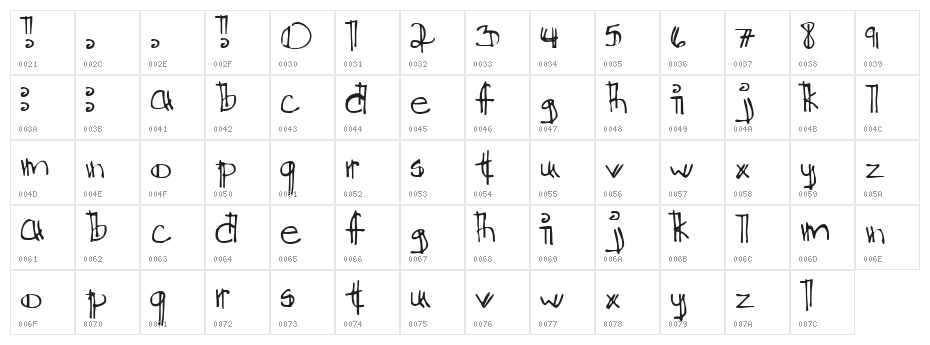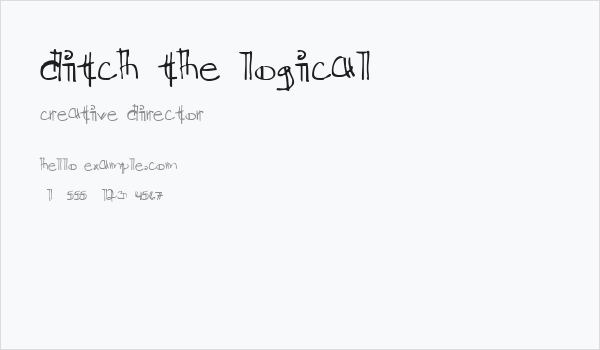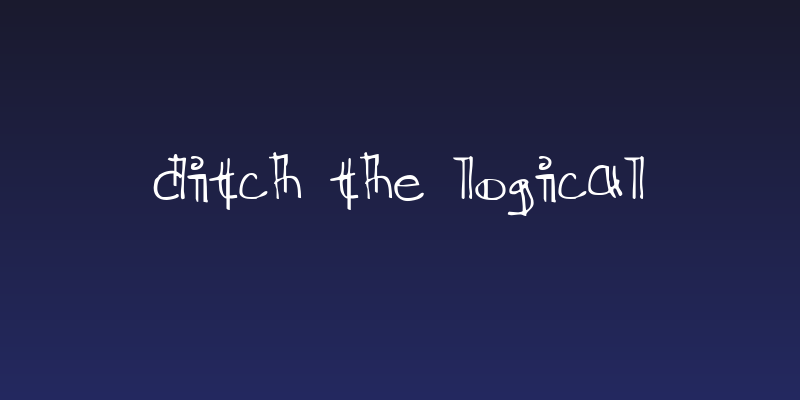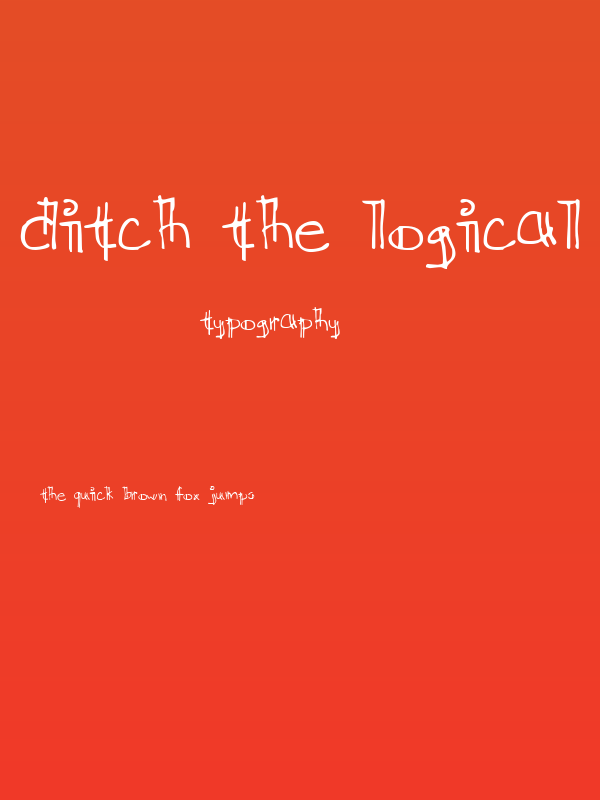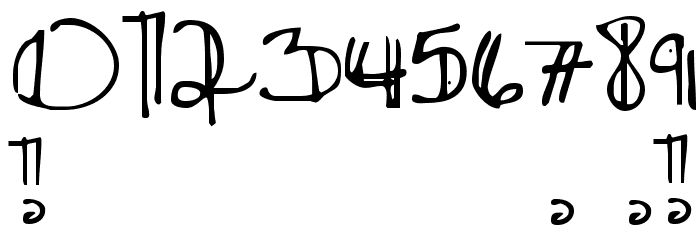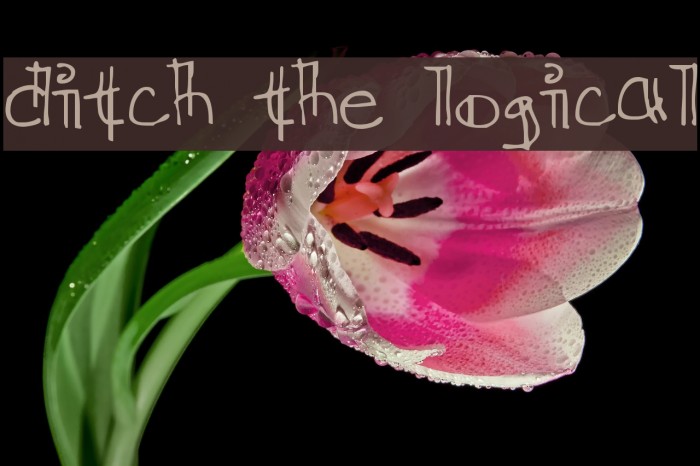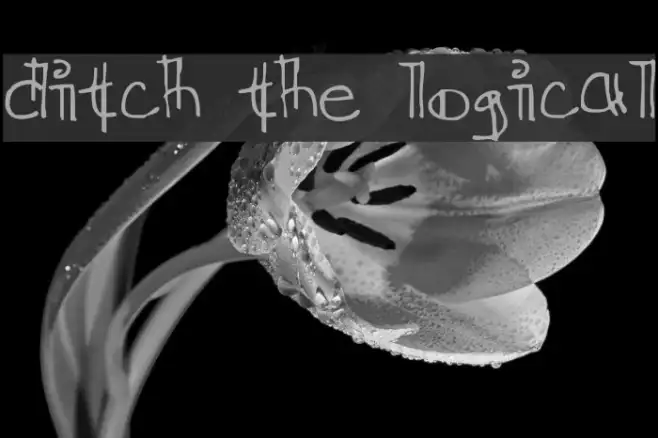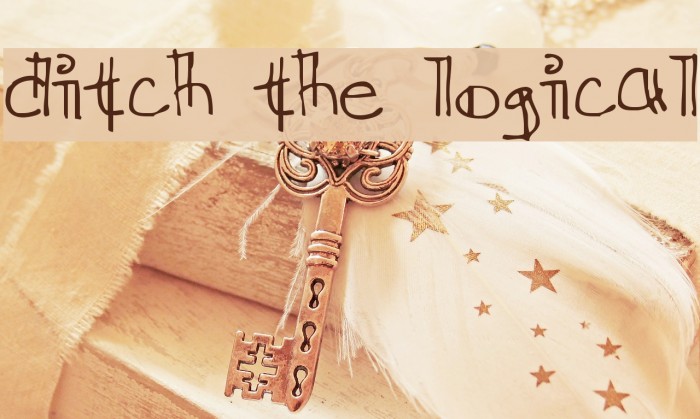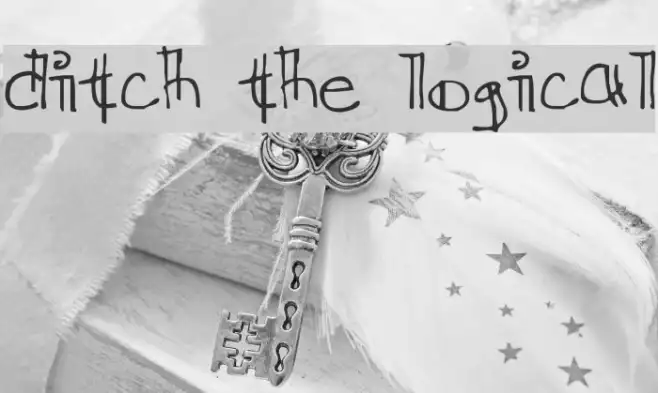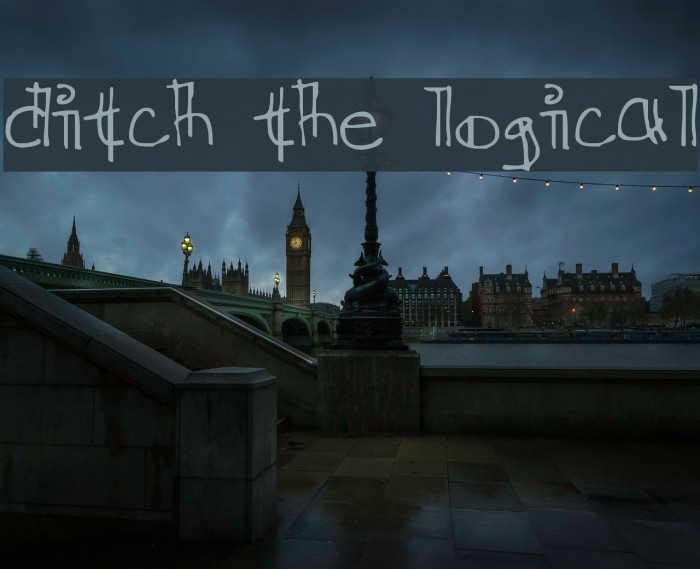
Ditch the Logical Font
Ditch the Logical Description
This font features a playful and whimsical handwritten style, characterized by its irregular and quirky letterforms. Each character appears to have been drawn with a casual, freehand approach, giving it a unique and personal touch. The strokes are uneven, with varying thickness that adds to the font's charm. The letters are slightly slanted, enhancing the informal and relaxed feel. This font is perfect for projects that require a touch of creativity and individuality, such as children's books, greeting cards, or artistic posters. Its distinctive style makes it stand out, capturing attention with its lively and animated appearance.
| Use Case | Headlines, Artistic projects, Informal text |
| Proposed Projects | Ideal for children's books, greeting cards, artistic posters, and creative projects. |